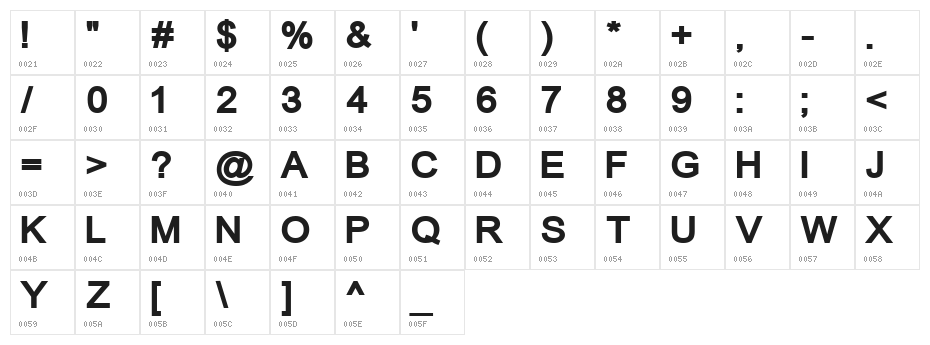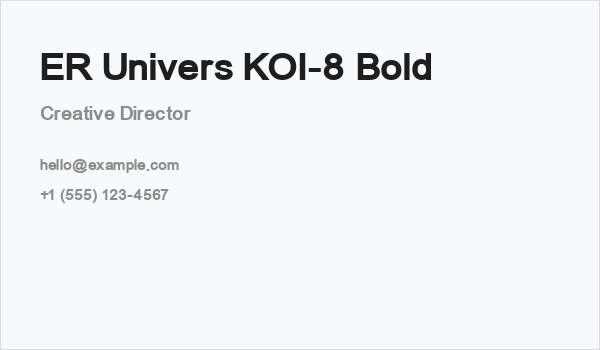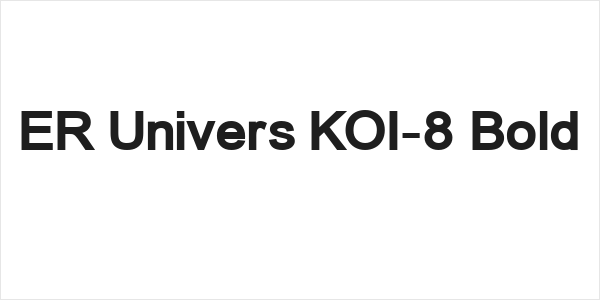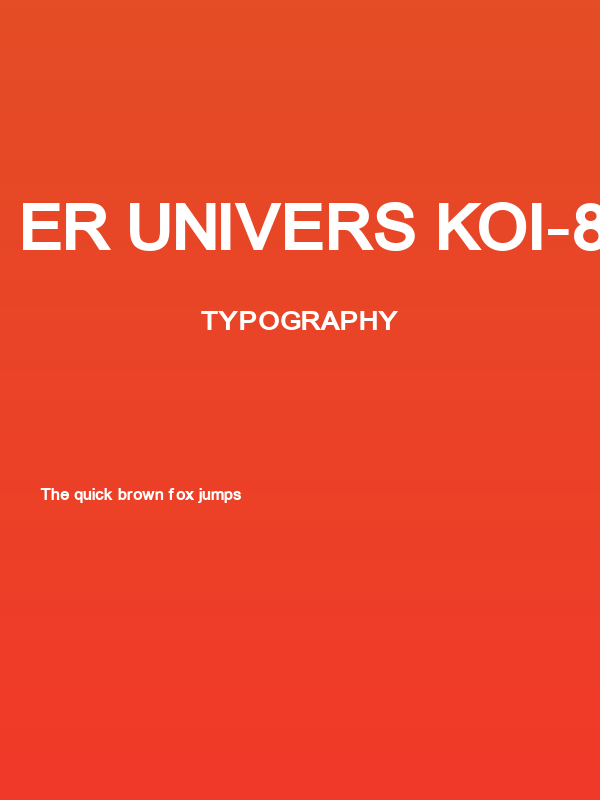
ER Univers KOI-8 Bold Font
ER Univers KOI-8 Bold Description
This font exhibits a clean and modern sans-serif style with bold, uniform strokes that convey strength and clarity. The characters are well-proportioned, featuring a consistent weight throughout, which enhances readability. The uppercase letters are slightly taller than the lowercase, providing a balanced visual hierarchy. The numerals are clear and distinct, making them suitable for both display and text purposes. Special characters are designed with the same boldness, ensuring they stand out effectively. Overall, this font is versatile, suitable for a wide range of applications from digital to print media.
| Use Case | Headlines, Logos, Digital interfaces |
| Proposed Projects | Ideal for branding, advertising, headlines, and digital interfaces where clarity and impact are essential. |